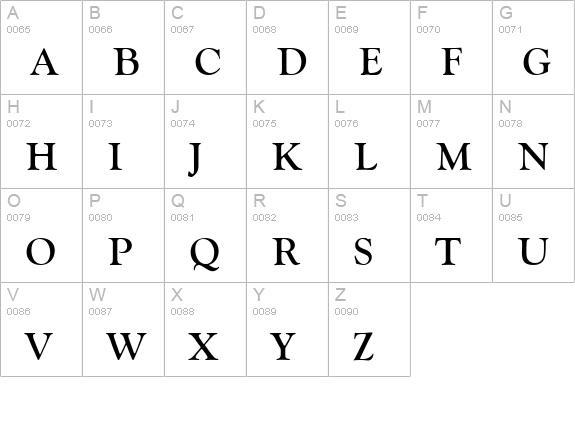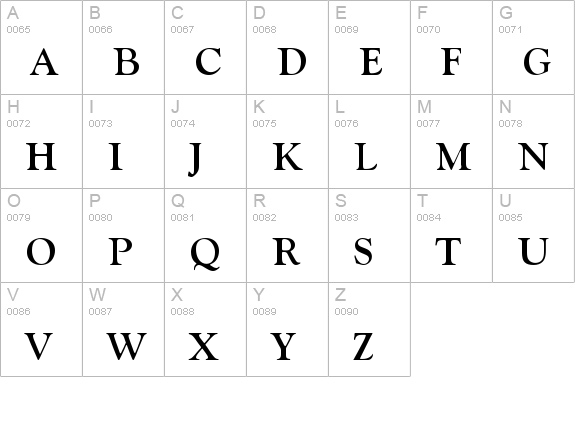
Goudy Retrospective SSi Bold is a strong, high-contrast variant in the Goudy typeface family \xE2\x80\x94 well suited to headlines, attention-grabbing titles, and strong calls-to-action.
Goudy Retrospective SSi Bold font is a timeless and elegant typeface that exudes sophistication and class. With its bold and robust letterforms, this font is perfect for making a strong statement in your designs. Whether you're creating a vintage-inspired poster, a stylish logo, or a striking headline, Goudy Retrospective SSi Bold will add a touch of refined elegance to your projects. What makes this font even more appealing is the fact that it is available for free download at FontsMarket.com. You can easily access this high-quality typeface and use it in your personal or commercial projects without any cost. Embrace the classic beauty of Goudy Retrospective SSi Bold font and elevate your designs with its timeless charm.